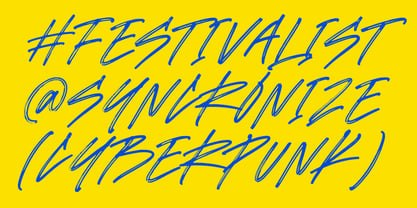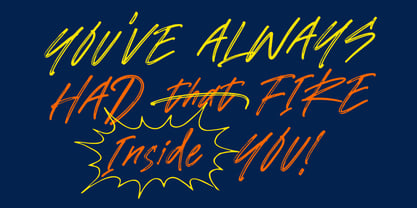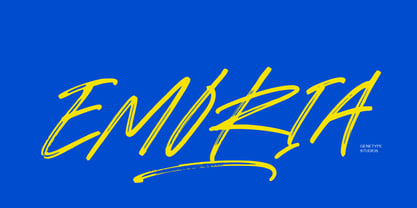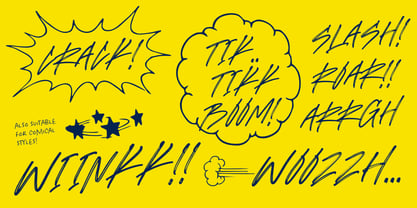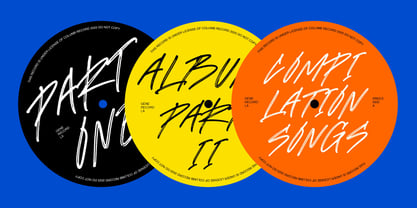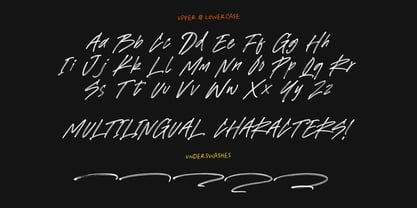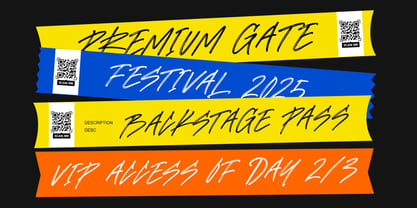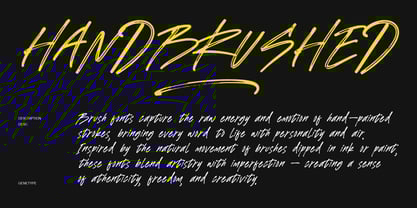
Emoria Brush
by Genetype
The Emoria Brush Font Family was designed by Bagus Arya Kirana and published by Genetype. Emoria Brush contains 1 styles. More about this family
Introducing Emoria – Expressive Brush Script Font Emoria captures the raw energy of hand-painted strokes — bold, fast, and full of movement. This expressive brush font is designed to bring an authentic, handcrafted feel to your design projects, combining artistry with attitude. Every letter in Emoria feels alive, with dynamic textures and imperfect brush details that give your typography a natural and spontaneous look. Perfect for music posters, streetwear logos, movie titles, branding, editorial design, or social media visuals, Emoria adds intensity and confidence to any composition. The font comes with uppercase, lowercase, numerals, punctuation, and multilingual support, Whether you're creating festival branding, bold advertising, or a high-energy album cover — Emoria will make your message stand out loud and clear.
Designers: Bagus Arya Kirana
Foundry: Genetype